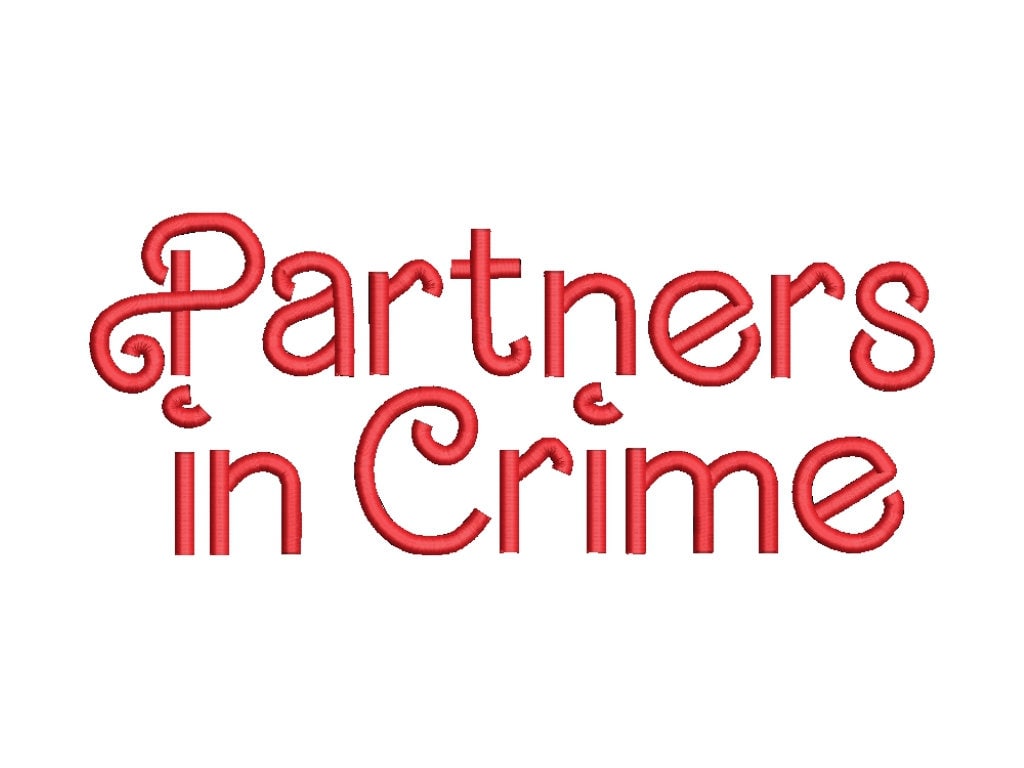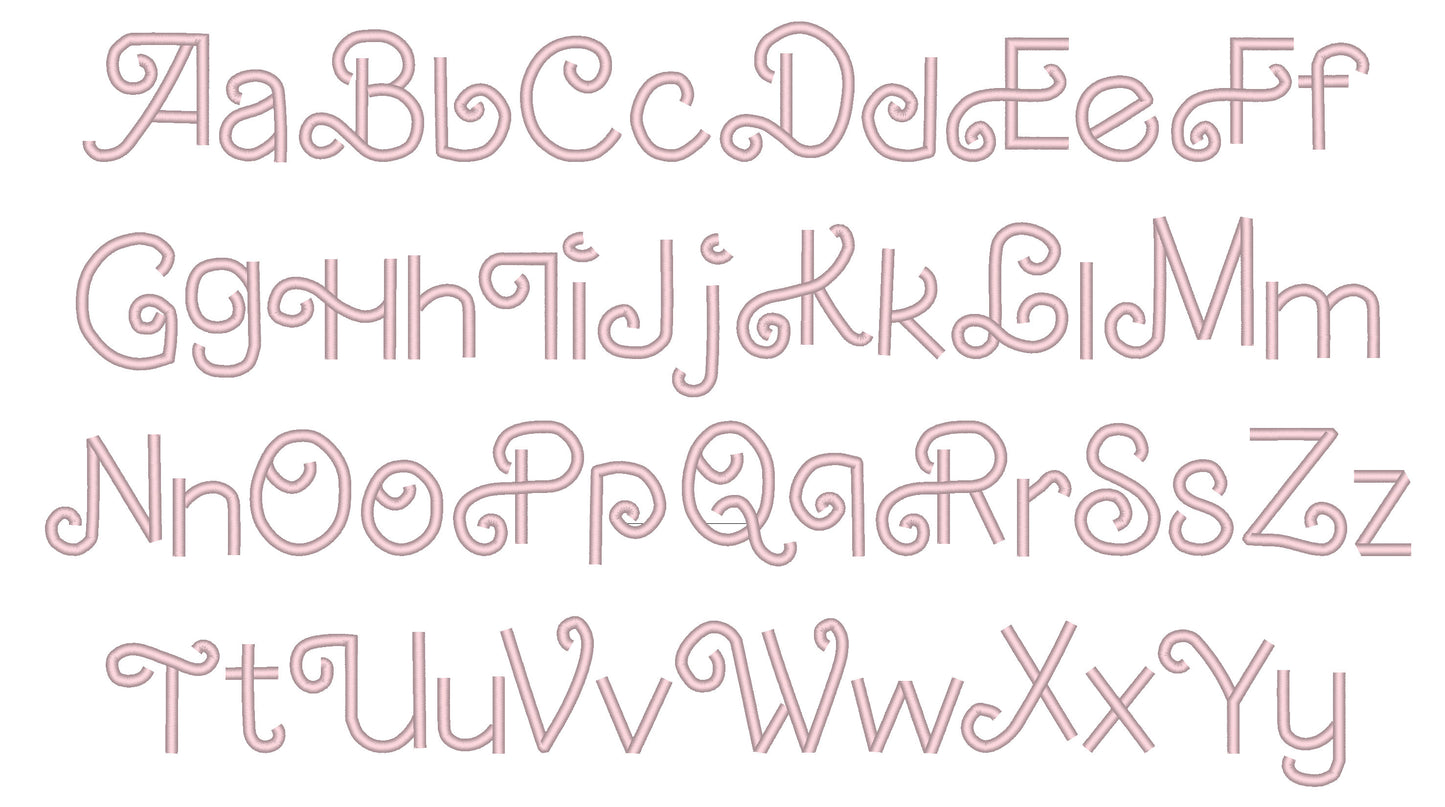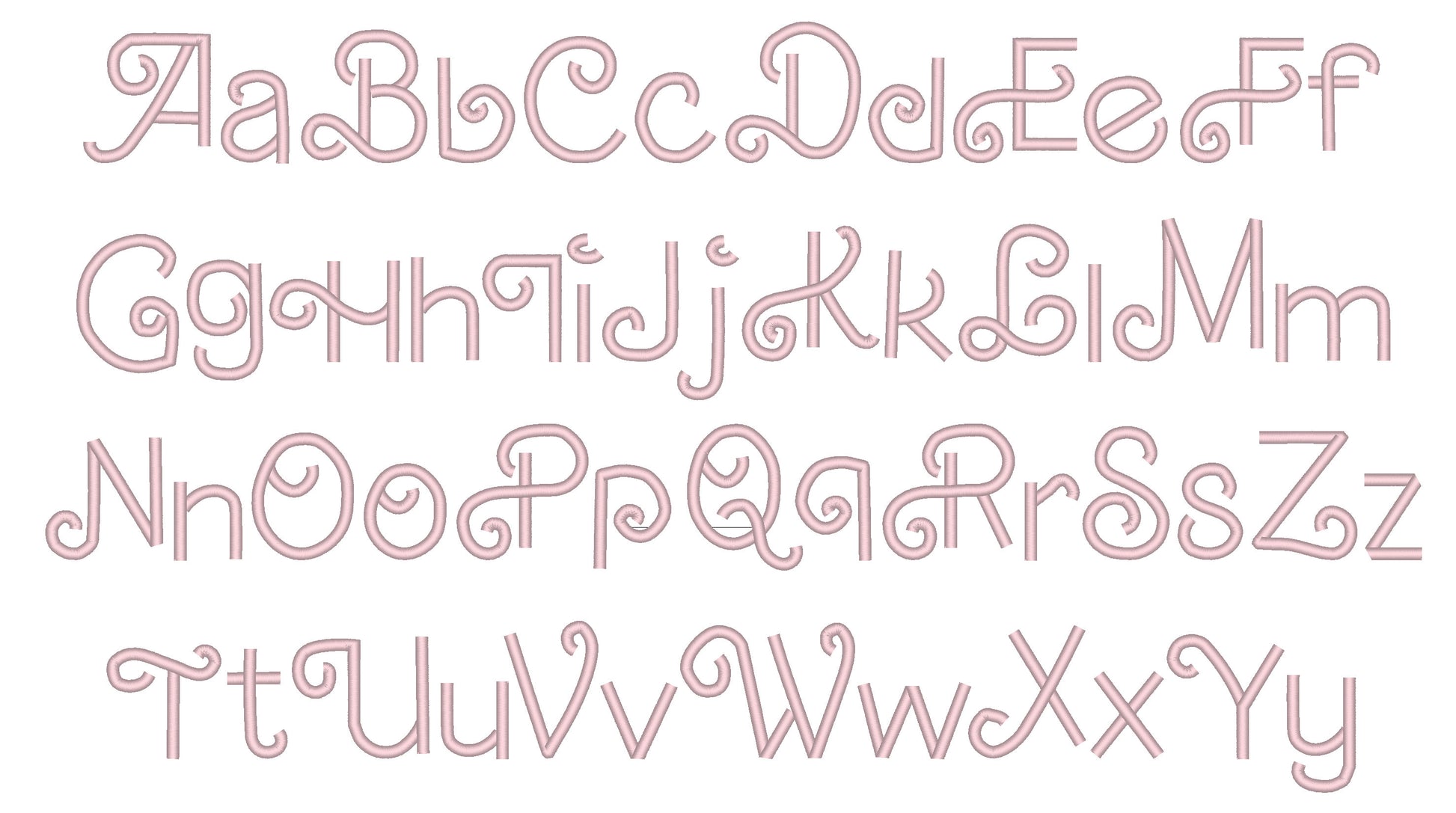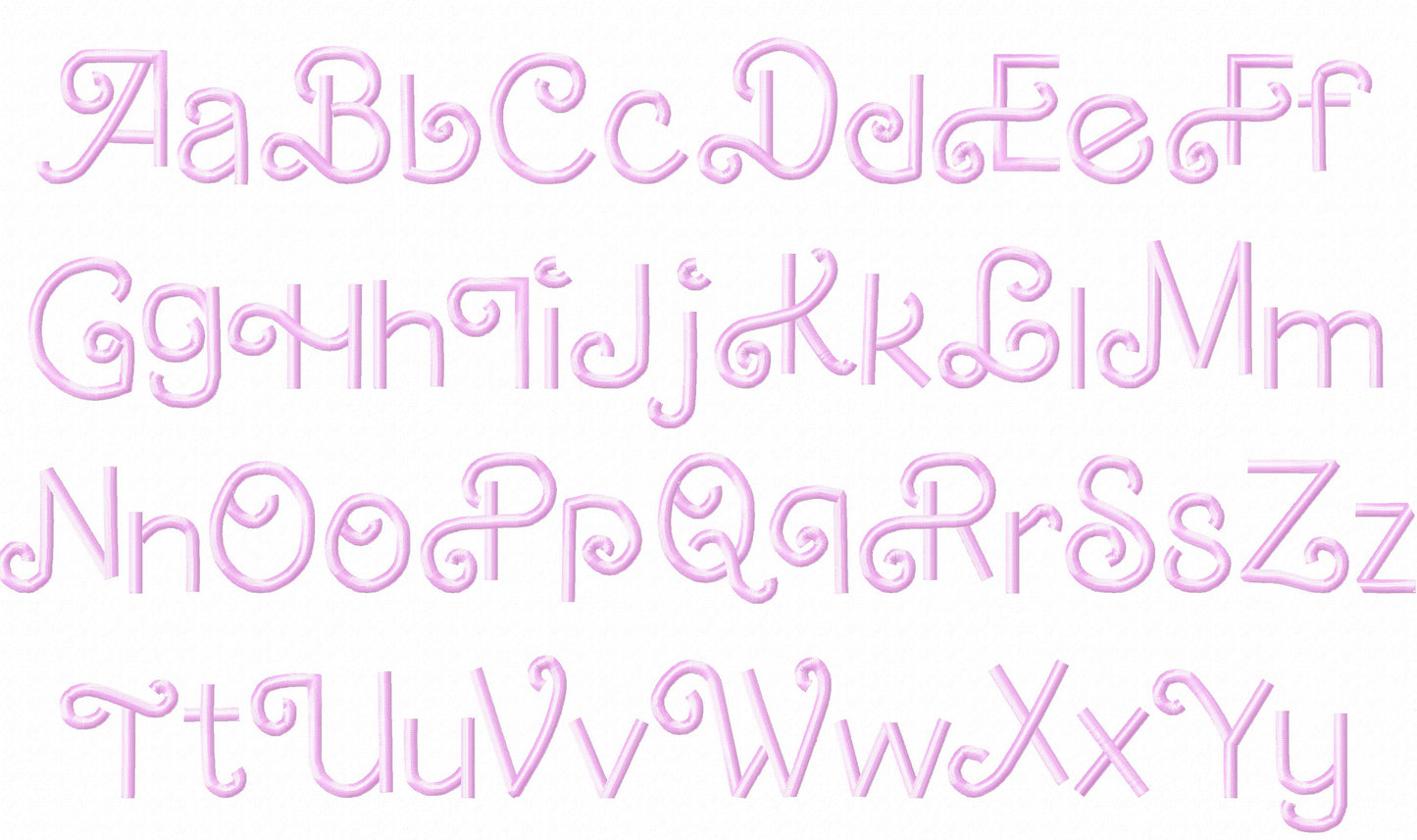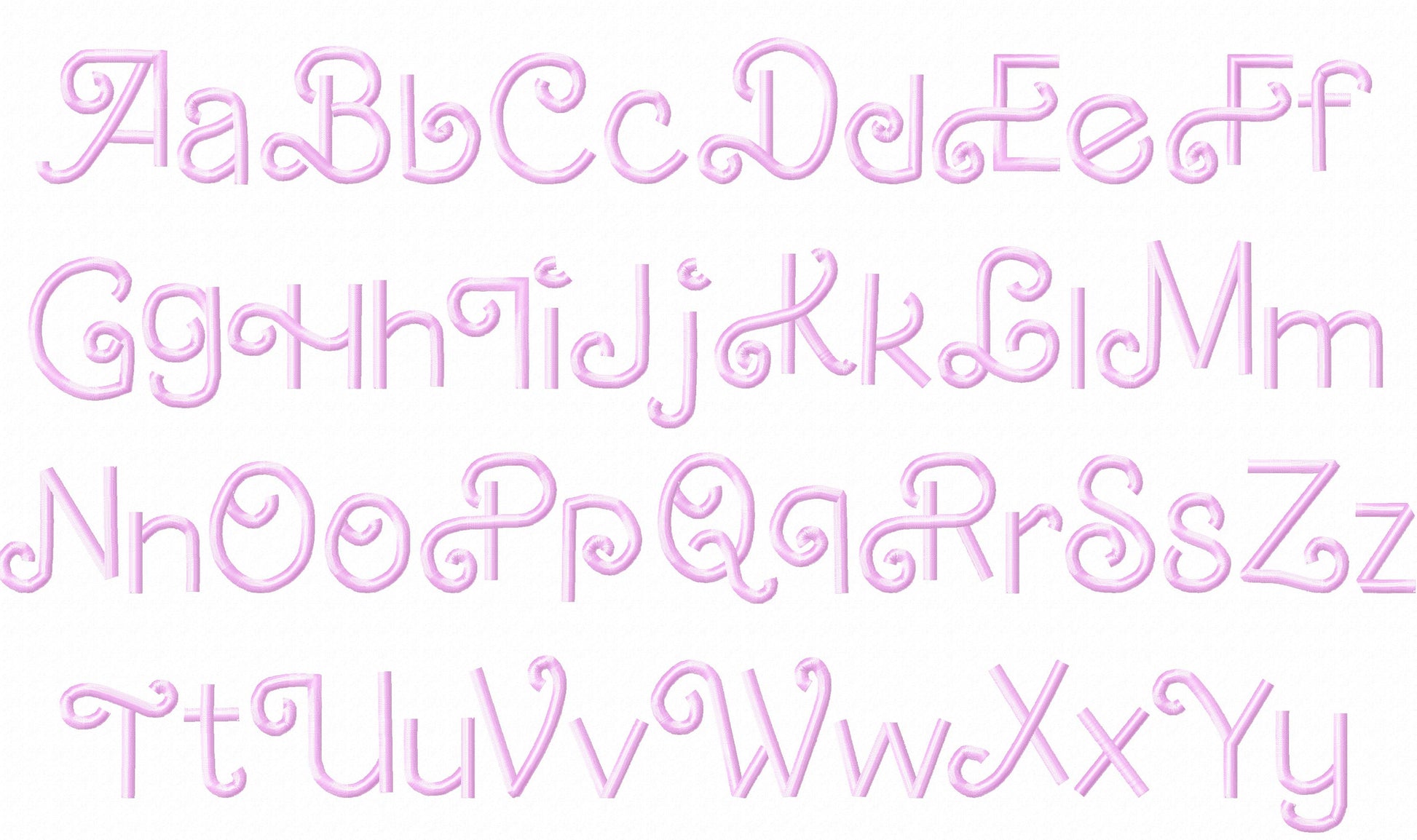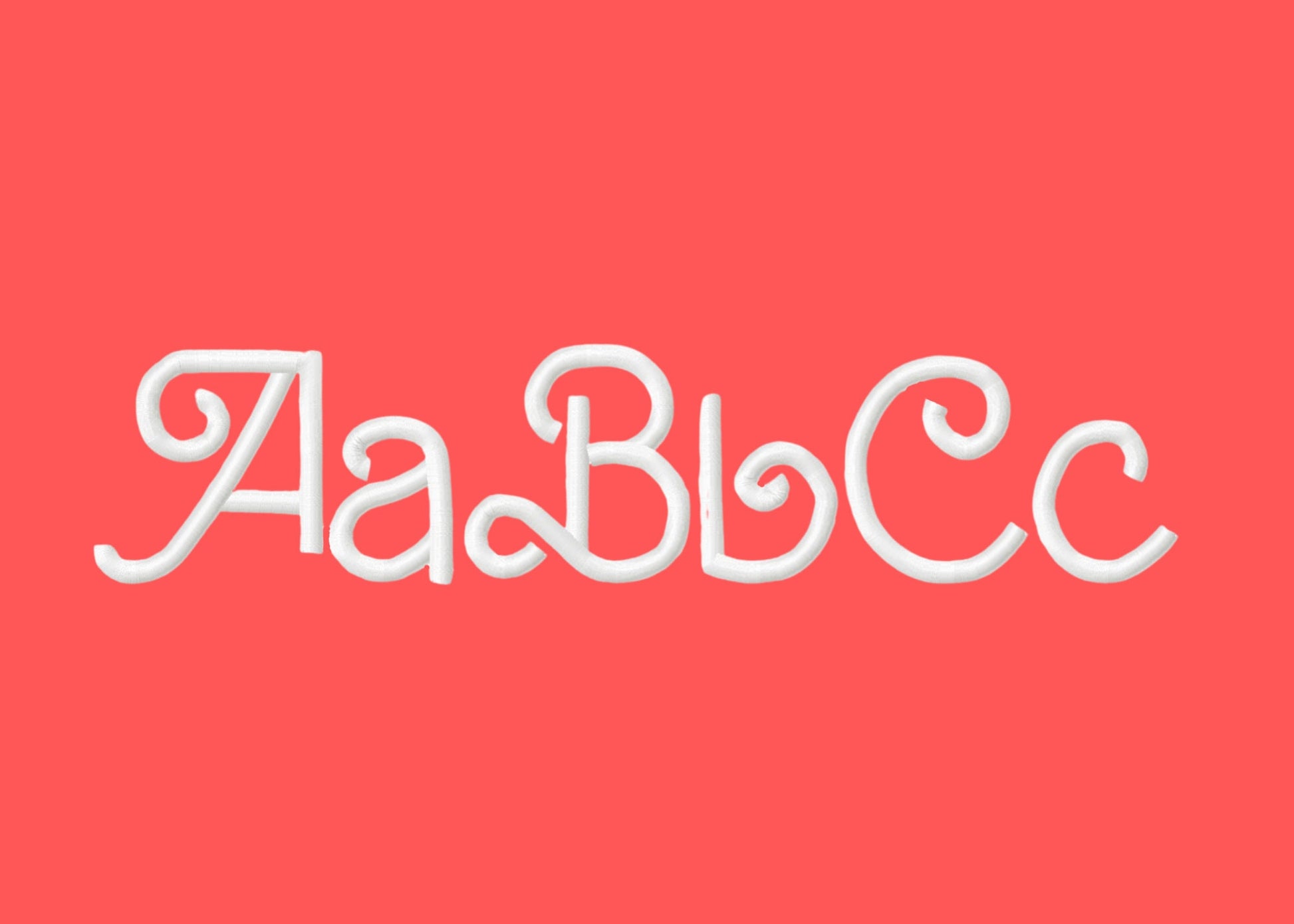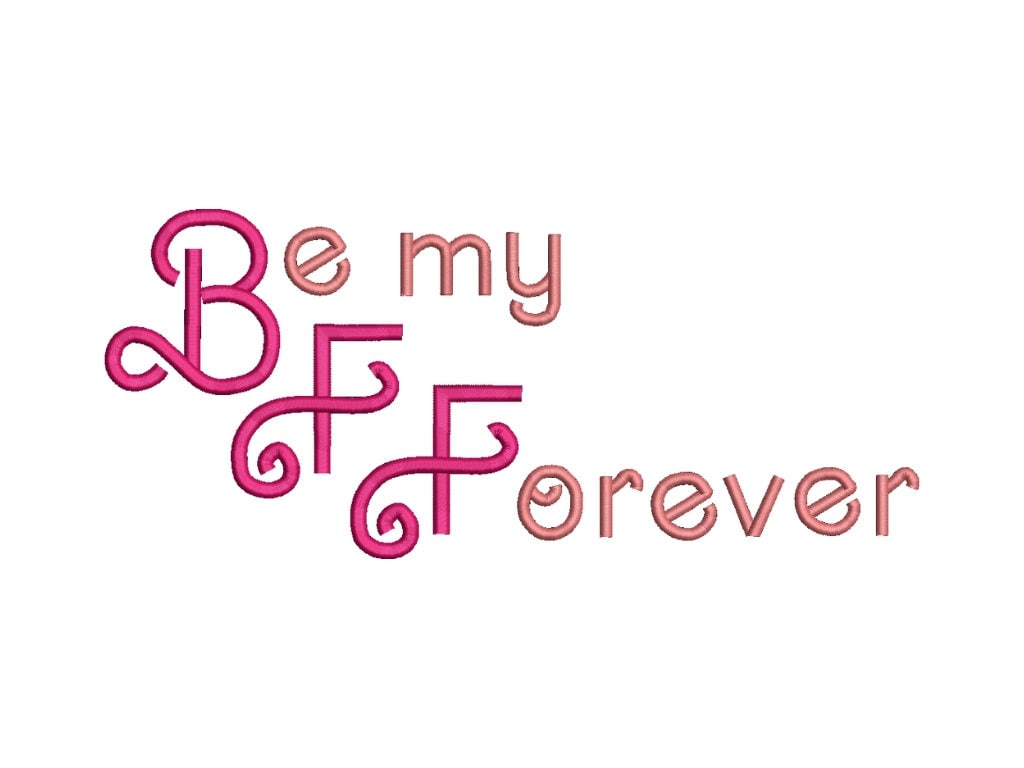
Retro Valentine Satin Stitch Line Font Mini
Or click to open the linkA retro handwritten line font with swirls and curls, in satin stitch. Sweet for Valentine's gifts, names, monograms and small sayings.
Uppercase and lowercase letters and numbers 0 to 9. Nine sizes: 0.6, 0.8, 1, 1.2, 1.5, 1.8, 2.1, 2.5 and 3 inches. A single satin line with curly swirls.
- Retro swirl satin line font
- Uppercase, lowercase, numbers 0 to 9
- 9 sizes, 0.6 to 3 in